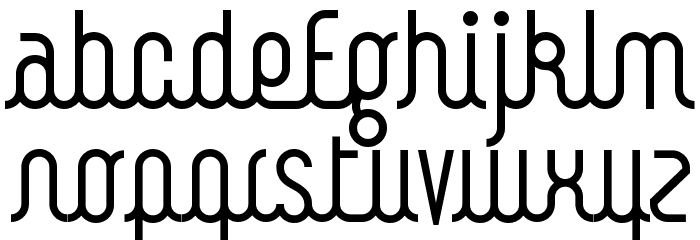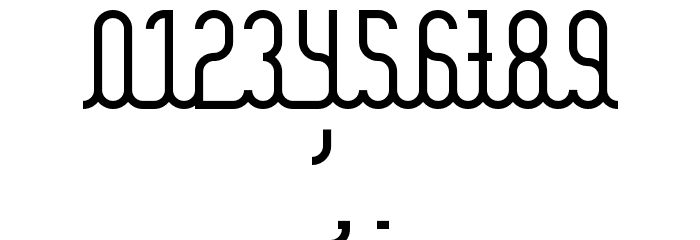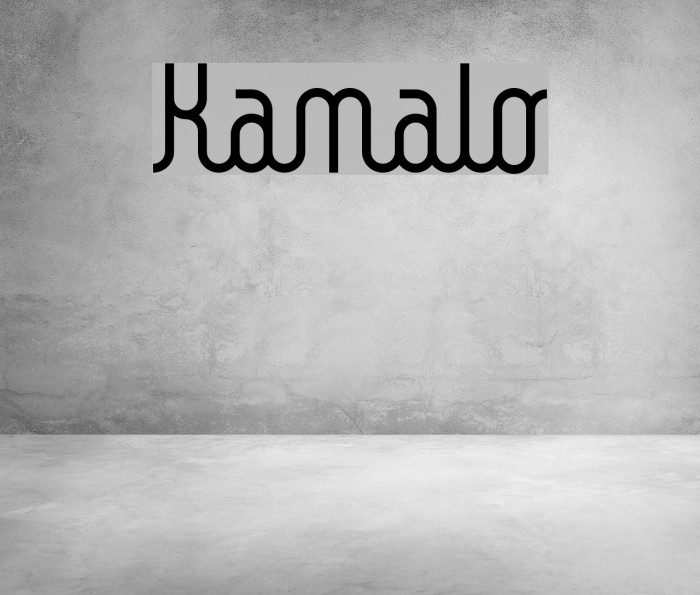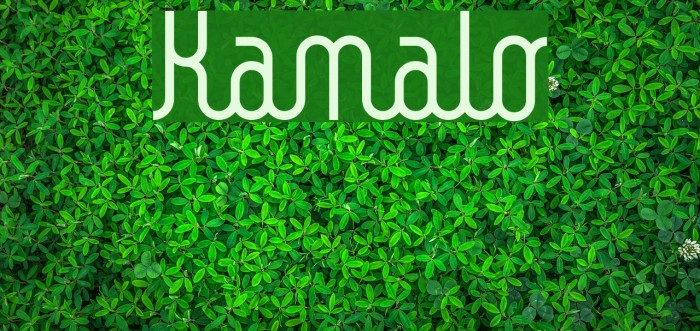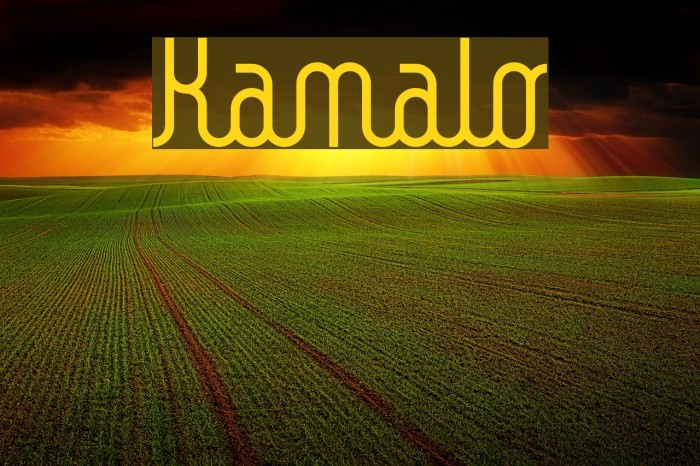
Kamalo Font
This font features a unique and modern design with a continuous, flowing style that connects each character seamlessly. The letters are elongated with rounded edges, creating a sense of movement and fluidity. The uppercase and lowercase letters maintain a consistent height, giving the font a uniform appearance. The numerals and special characters follow the same design principles, ensuring a cohesive look across all elements. The font's distinct style makes it stand out, while its readability remains intact due to the clear separation between characters.
A modern, flowing font with connected, elongated characters and rounded edges.
- Proposed Projects: Ideal for branding, logos, and creative projects where a modern and unique typeface is desired.
- Use Case: Logos, Headlines, Creative projects